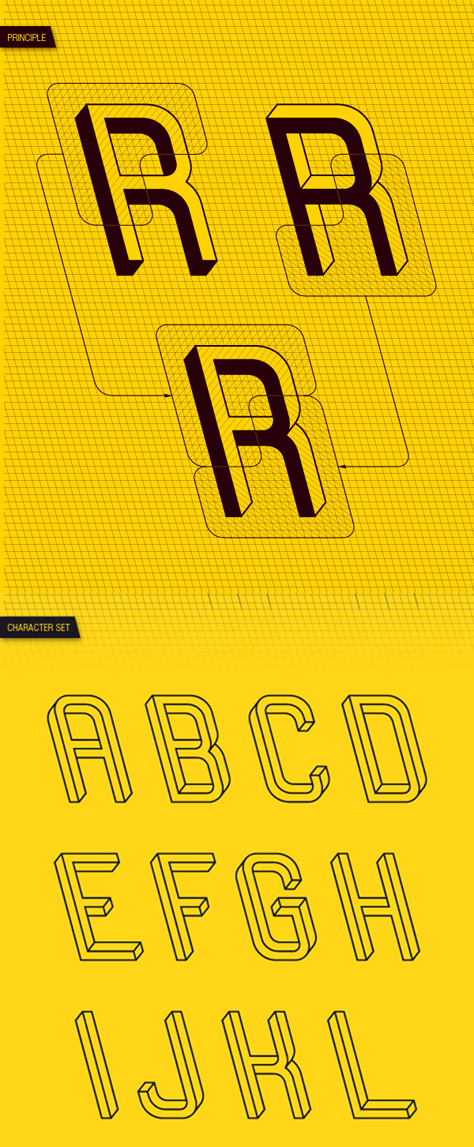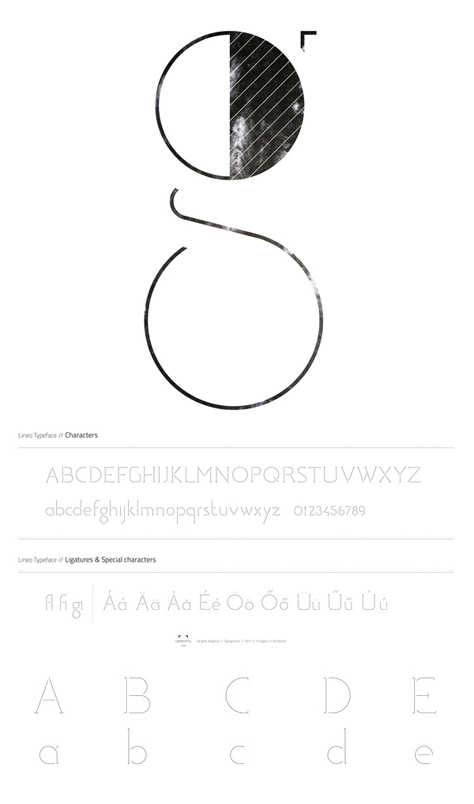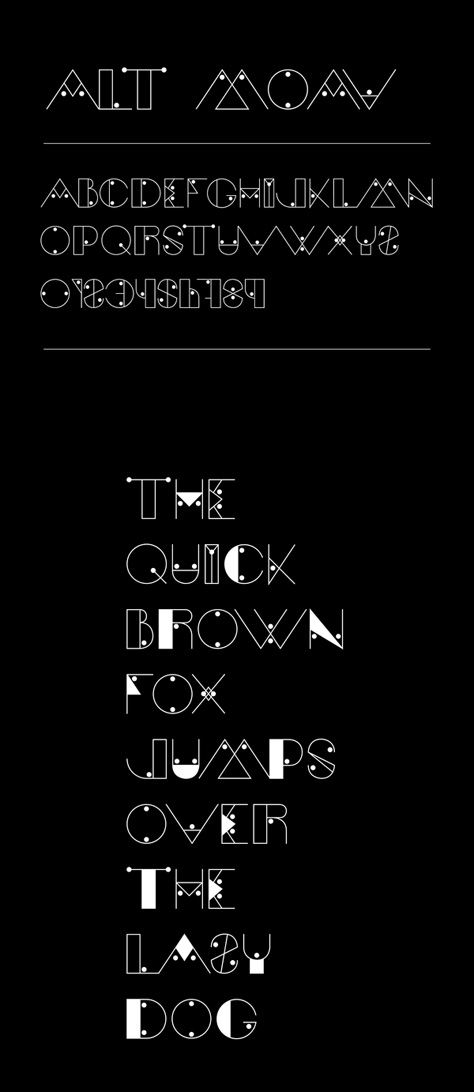
Fonts on Friday: Geometry and Line
What better time to round up new typefaces than on Friday. Not only is "Fonts on Friday" alliterative, but showcasing new fonts also seems like a good way to end the week as well.
This week's round-up consists to fonts that are thin, angular, and illusory. These typefaces definitely fall into the category of experimental.
Because of their strong personalities, these three typefaces seem well-suited for posters and other projects where unusual display type won't distract from the message.
Frustro, by Martzi Hegedűs of Budapest, Hungary, looks like something M.C. Escher might have drawn. It has the appearance of both facing out and facing in. Based on a concept called the Penrose Triangle — an impossible object that cannot be built in three-dimensional space — every letter is an optical illusion.
Lineo's lines are so thin the font almost seems to disappear on the screen, yet its strong geometry gives it a presence that belies its somewhat wispy appearance. Designed by Gergely Bogányiof Budakeszi, Hungary, Lineo's square serifs and non-connecting lines give it aplayful quality as well. Lineo would look nice at large point sizes.
Designer Andreas Leonidou of Limassol, Cyprus, says Moav is an experimental typeface. "I just love experimenting with geometric shapes," he says.